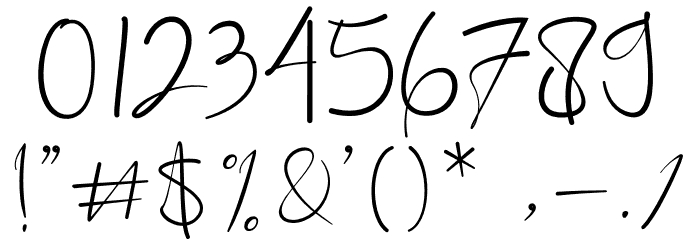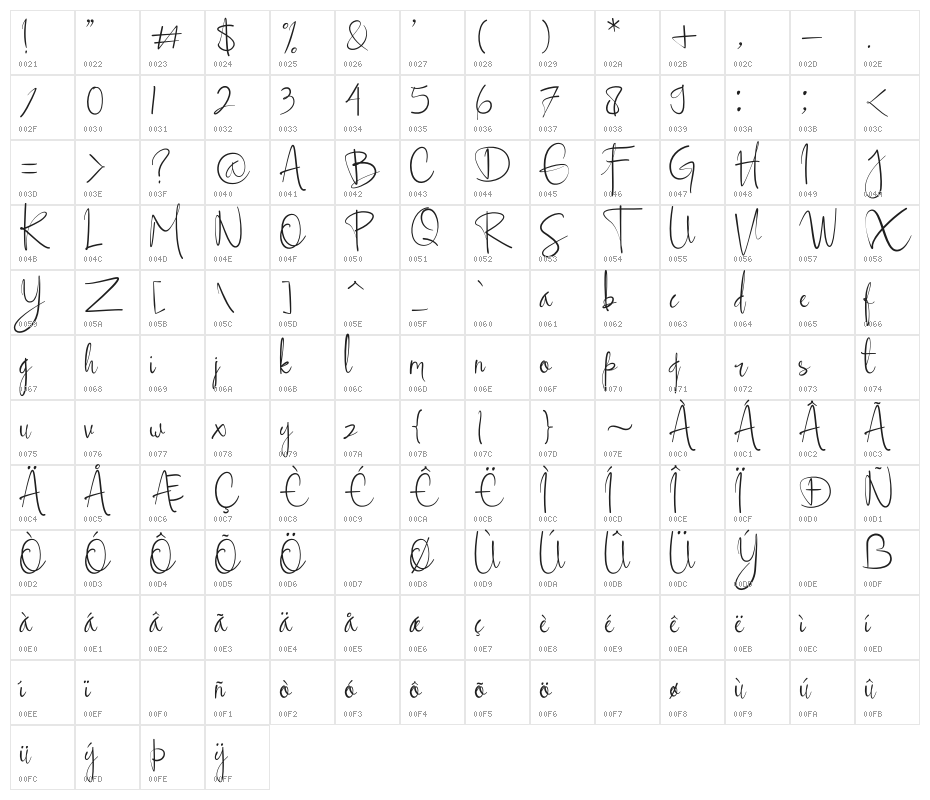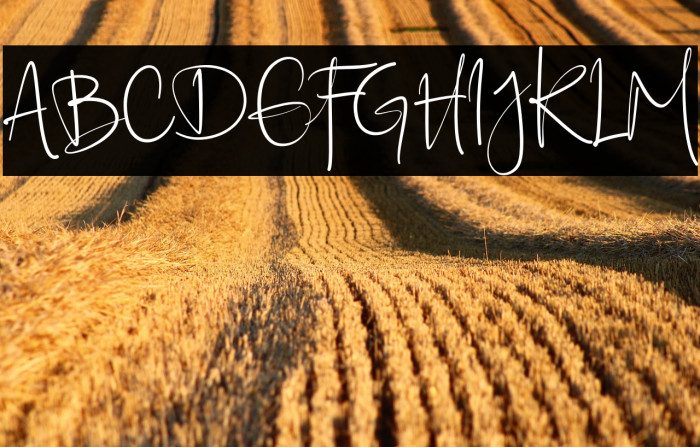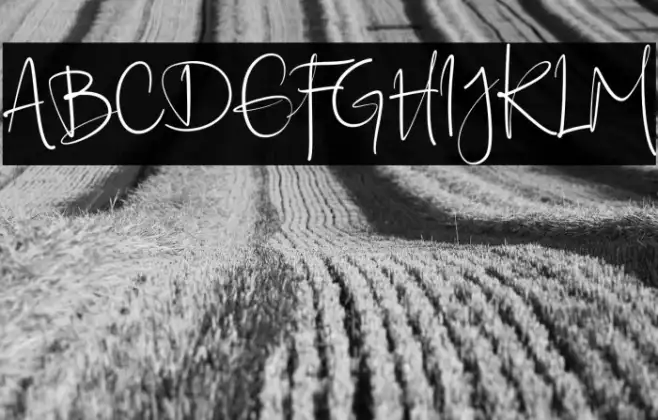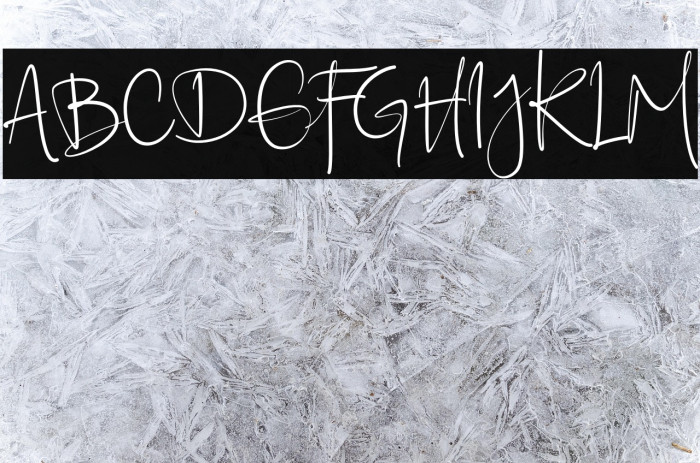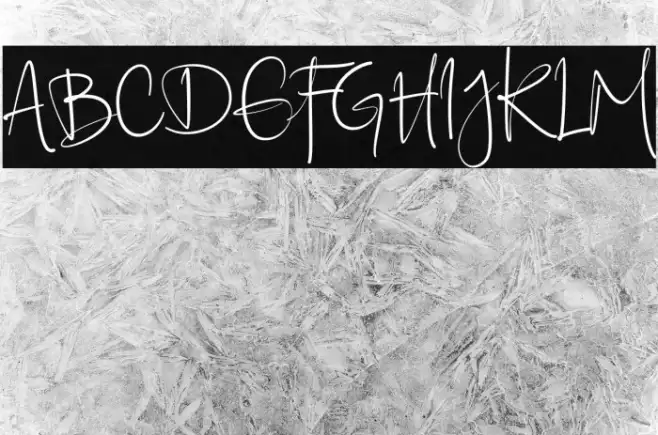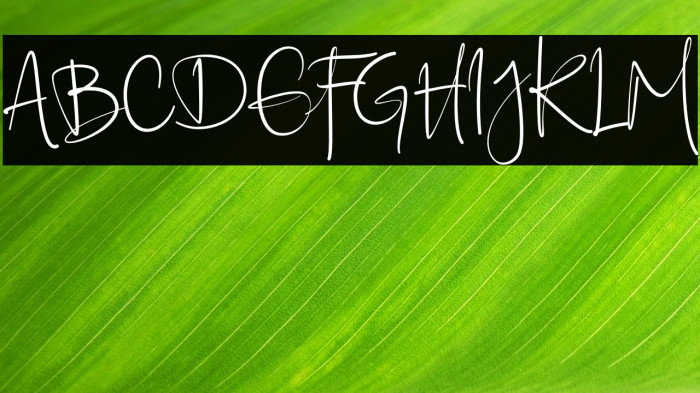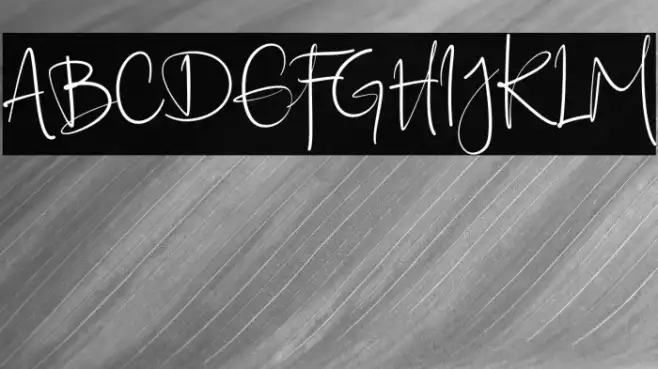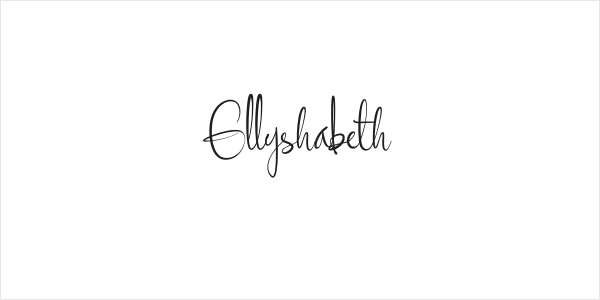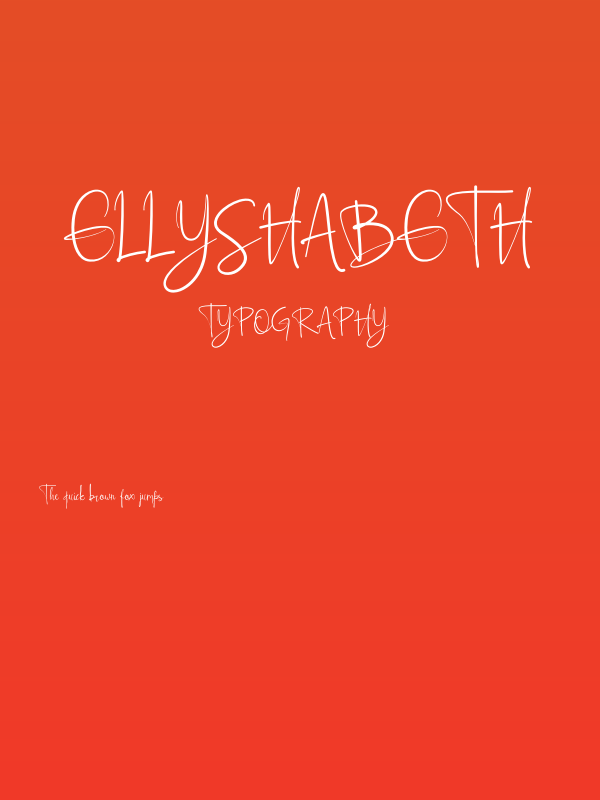
Ellyshabeth Font
Ellyshabeth Description
This font features a playful and whimsical handwritten style, characterized by its flowing, cursive-like strokes. The uppercase letters are tall and slightly irregular, giving them a casual, artistic feel. The lowercase letters maintain a consistent flow, with some letters extending below the baseline, adding to the font's dynamic appearance. Numbers are distinct and easy to read, while special characters blend seamlessly with the overall style. The font's thin strokes and varying line thickness contribute to its lively and expressive nature, making it suitable for creative and informal projects.
| Proposed Projects | Ideal for greeting cards, invitations, personal branding, and creative projects that require a personal touch. |